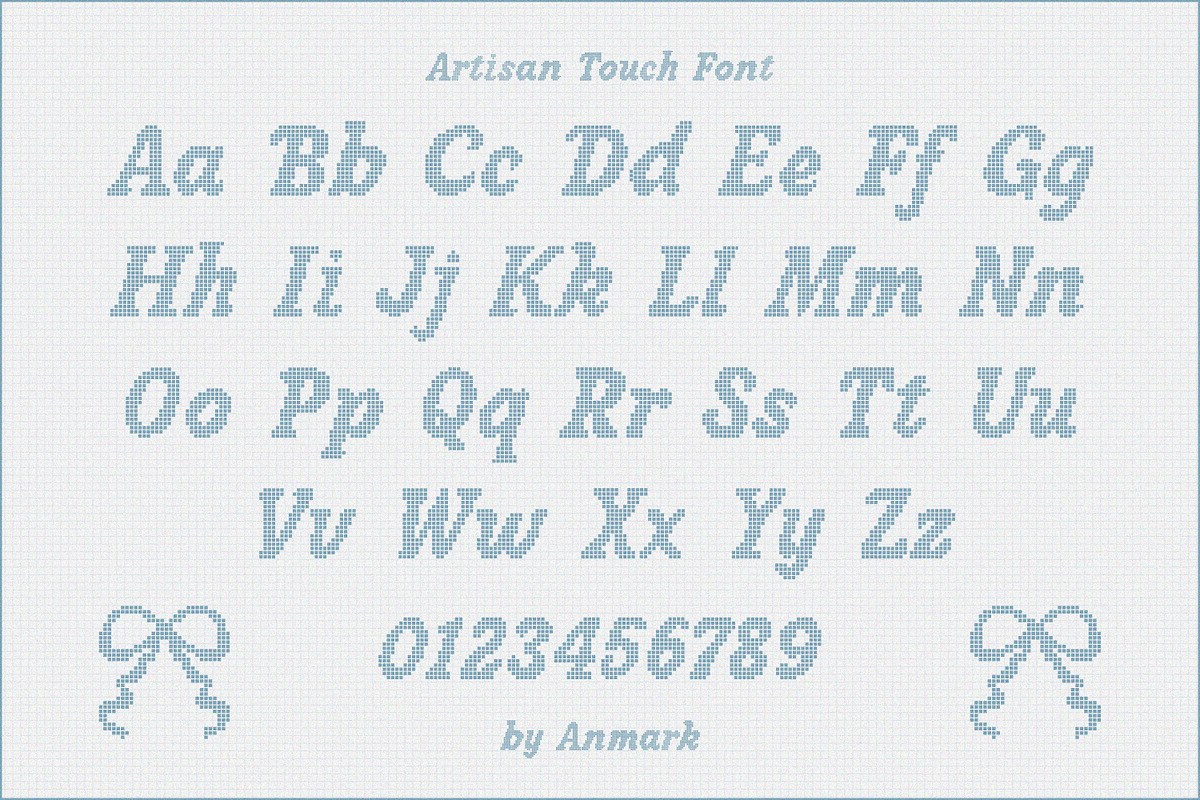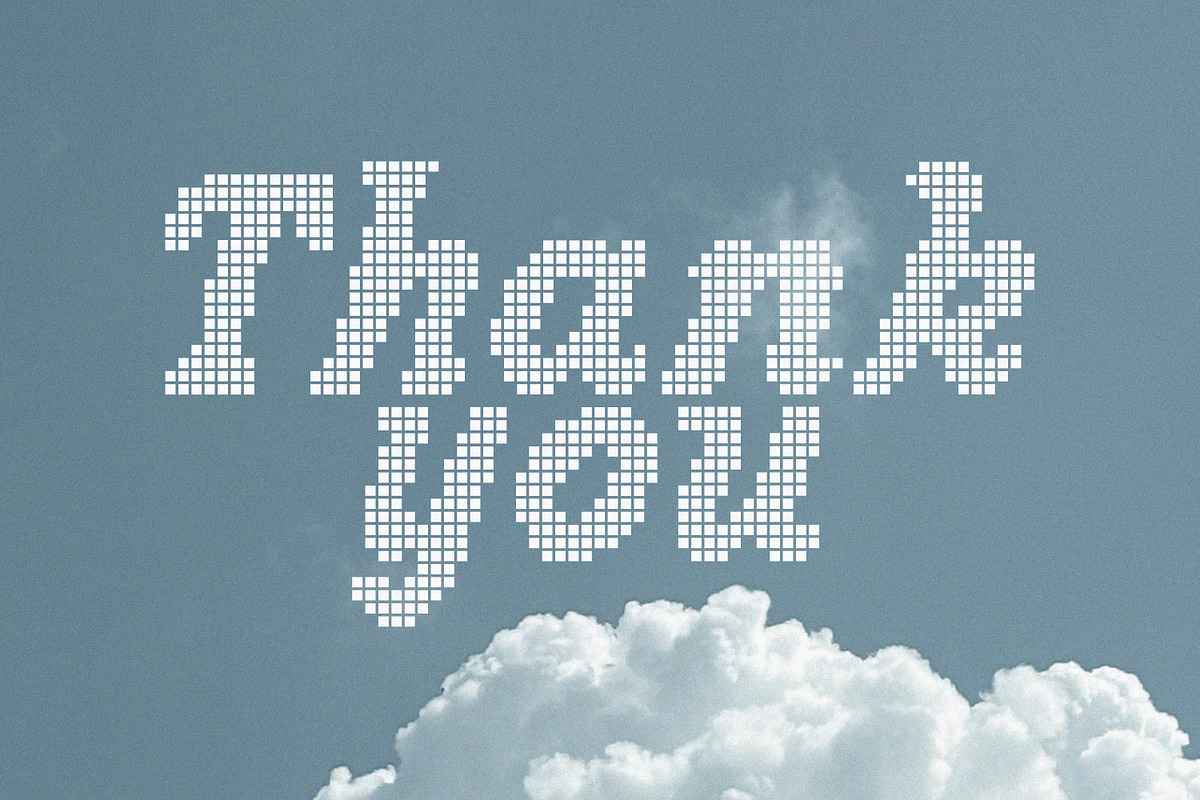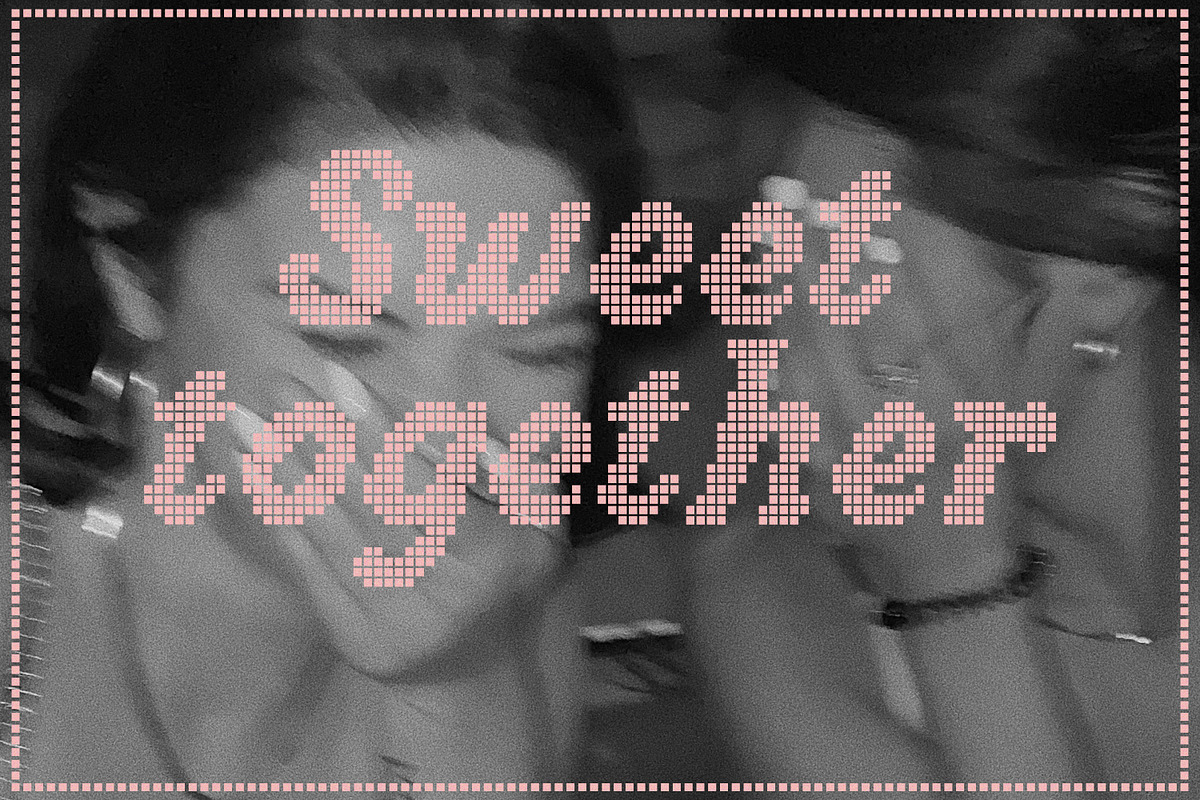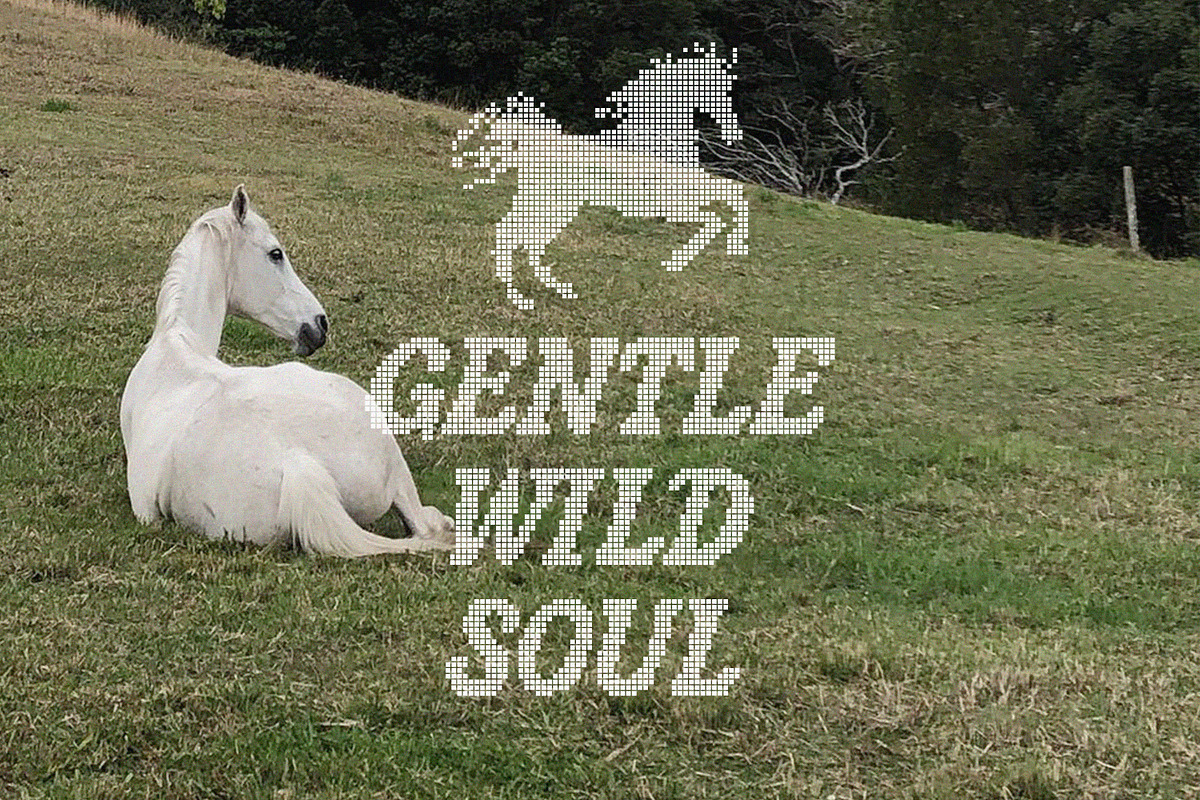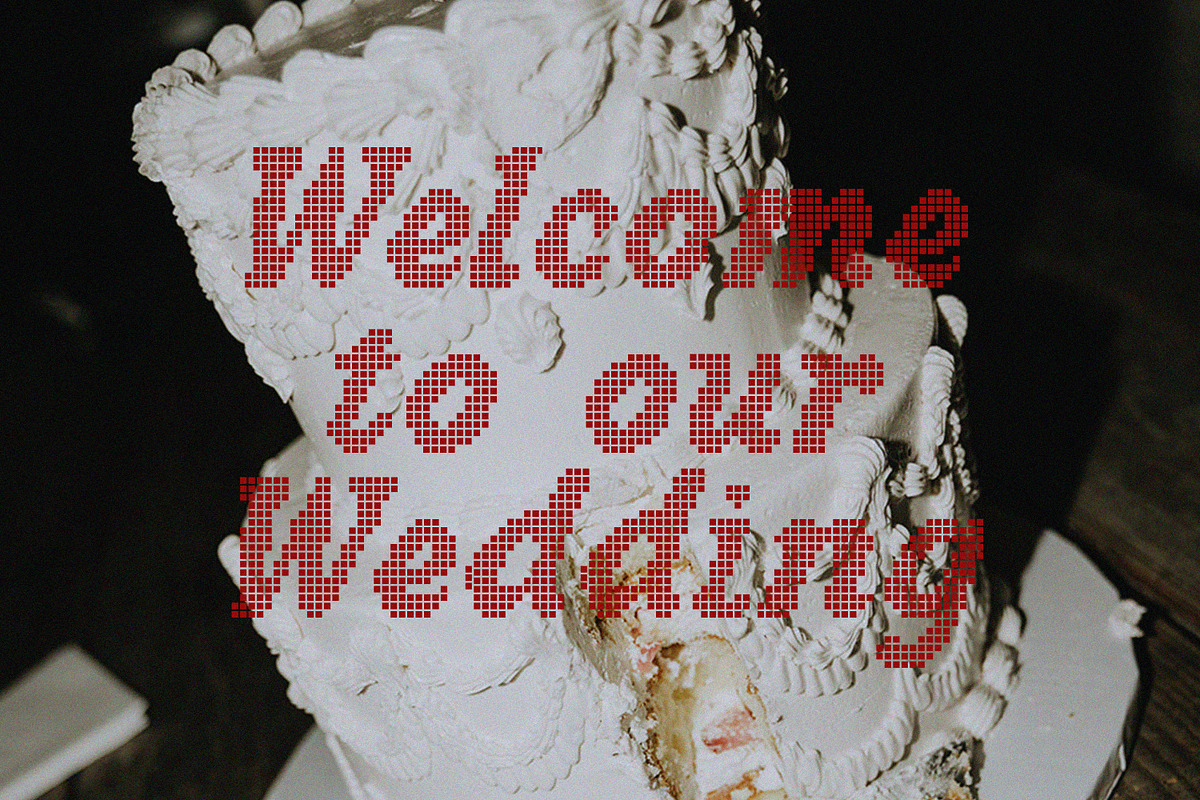
Artisan Touch Vintage Pixel Font
Artisan Touch combines nostalgic retro charm with clean pixel precision, giving your designs a unique vintage character. Its sharp pixels and classic serifs bring a subtle elegance that works beautifully in wedding invitations, romantic posters, logos, and social media graphics. Perfect for retro-inspired weddings, stationery, and any project where bold, memorable text meets timeless romance.
Clear pixel structure with classic serifs
Elegant yet readable, ideal for headlines and display text
Perfect for wedding invitations, branding, and romantic designs
Works beautifully in both digital and print projects